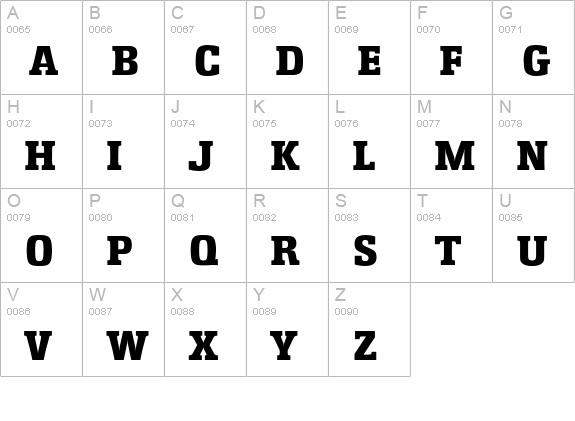
Enschede-ExtraBold is an extra-heavy, attention-grabbing variant in the Enschede typeface family \xE2\x80\x94 well suited to high-impact headlines, posters, and bold branding.
Enschede-ExtraBold font is a striking and robust typeface that commands attention with its bold and powerful design. This versatile font is perfect for making a bold statement in headlines, titles, posters, and other display materials. With its clean lines and strong presence, Enschede-ExtraBold exudes confidence and modernity. What sets Enschede-ExtraBold apart is not just its impressive design, but also the fact that it is available for free download at FontsMarket.com. This means that you can easily access and use this eye-catching font for your design projects without any cost involved. Whether you're creating a poster for a special event, designing a logo for a brand, or crafting a striking headline for a website, Enschede-ExtraBold is the perfect choice for making a bold impact. Download it for free today and take your designs to the next level with this powerful and versatile font.